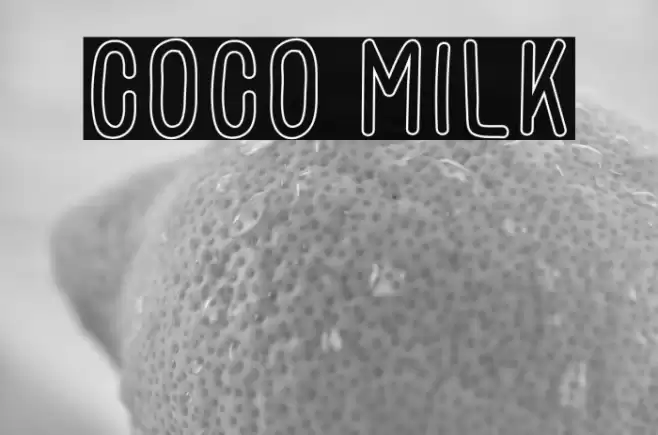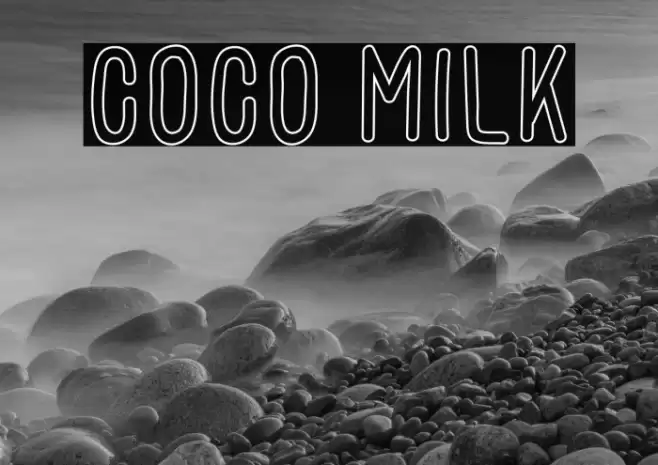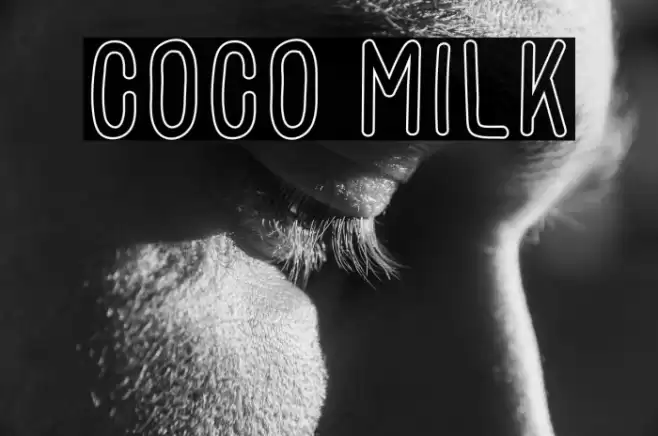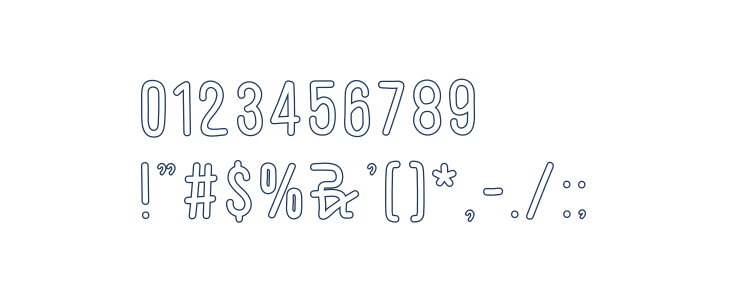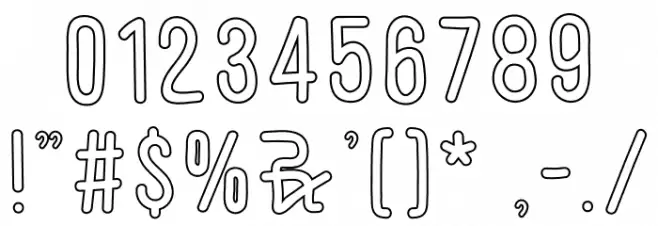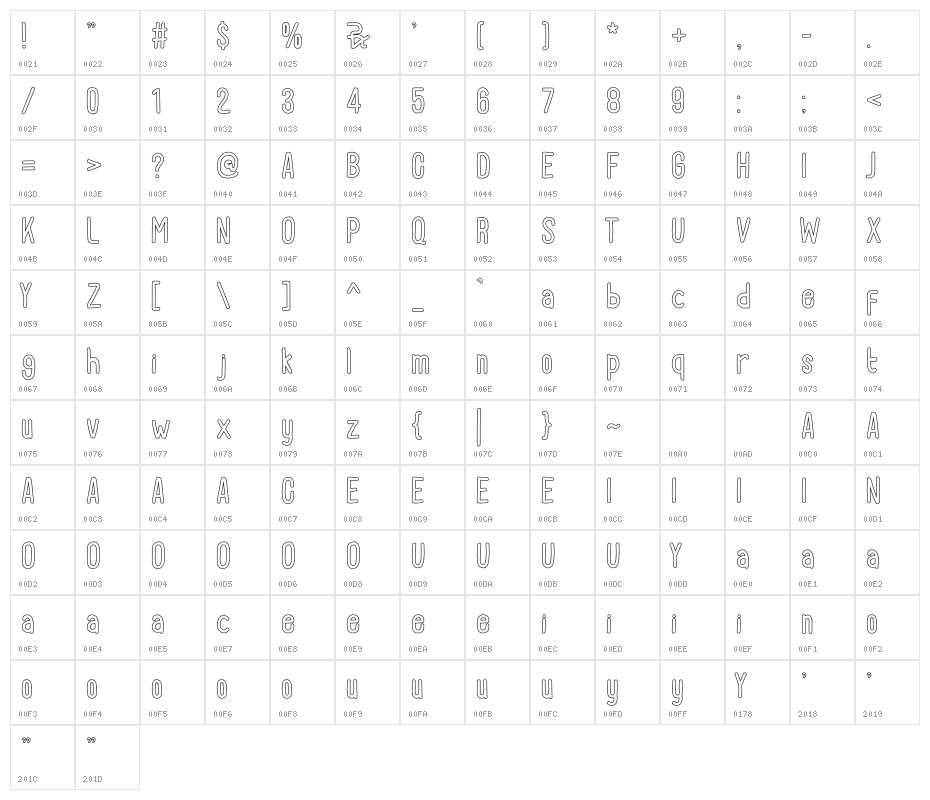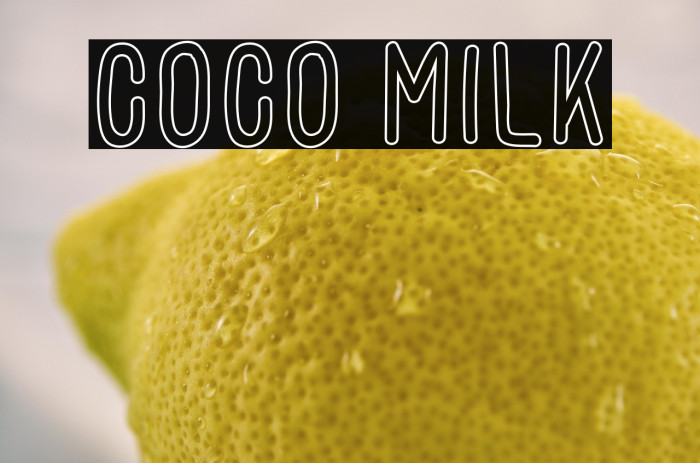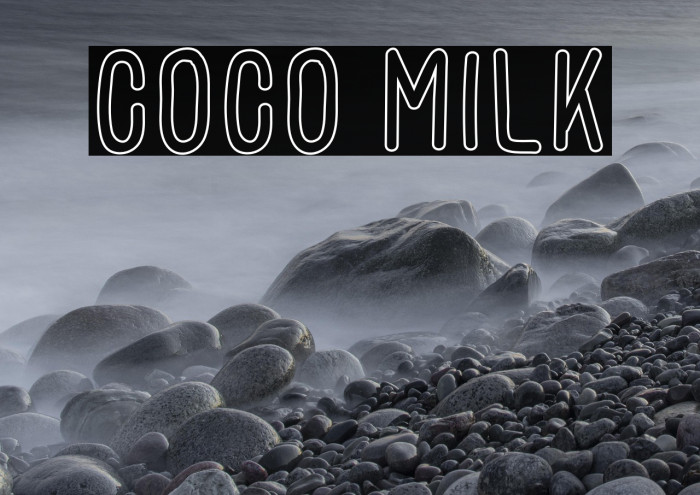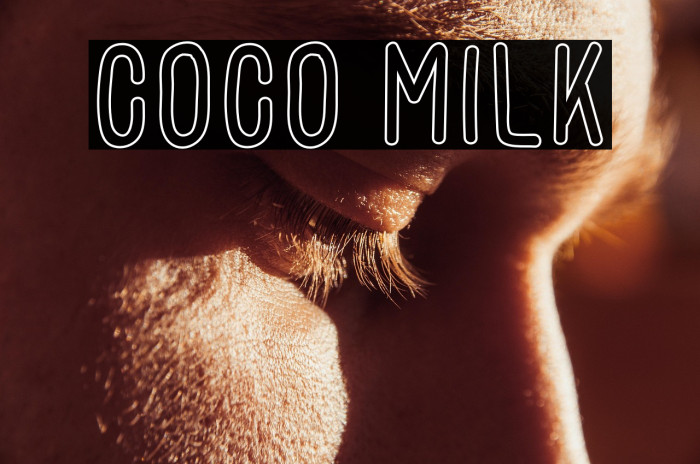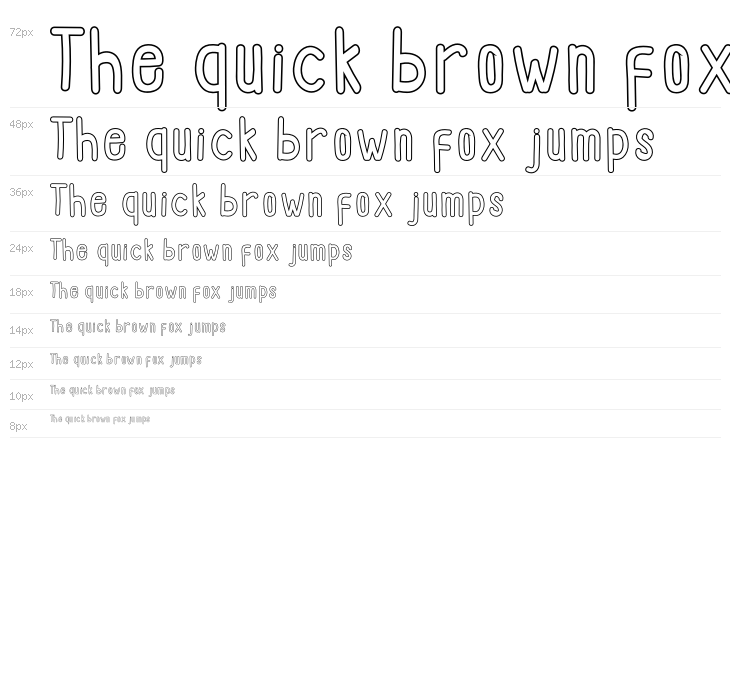
COCO MILK Font
COCO MILK Description
This playful and whimsical font features a unique outline style that gives it a hand-drawn appearance. The characters are rounded and slightly irregular, adding a sense of fun and creativity. The uppercase and lowercase letters maintain a consistent height, while the numbers and special characters follow the same design principles. The font's open and airy structure makes it highly legible, even at smaller sizes. Its distinctive style is perfect for projects that require a touch of personality and charm.
A playful, hand-drawn outline font with rounded, whimsical characters from Regular fonts.
- Proposed Projects: Ideal for children's books, playful branding, greeting cards, and creative posters.
- Overall Style: Whimsical, Playful